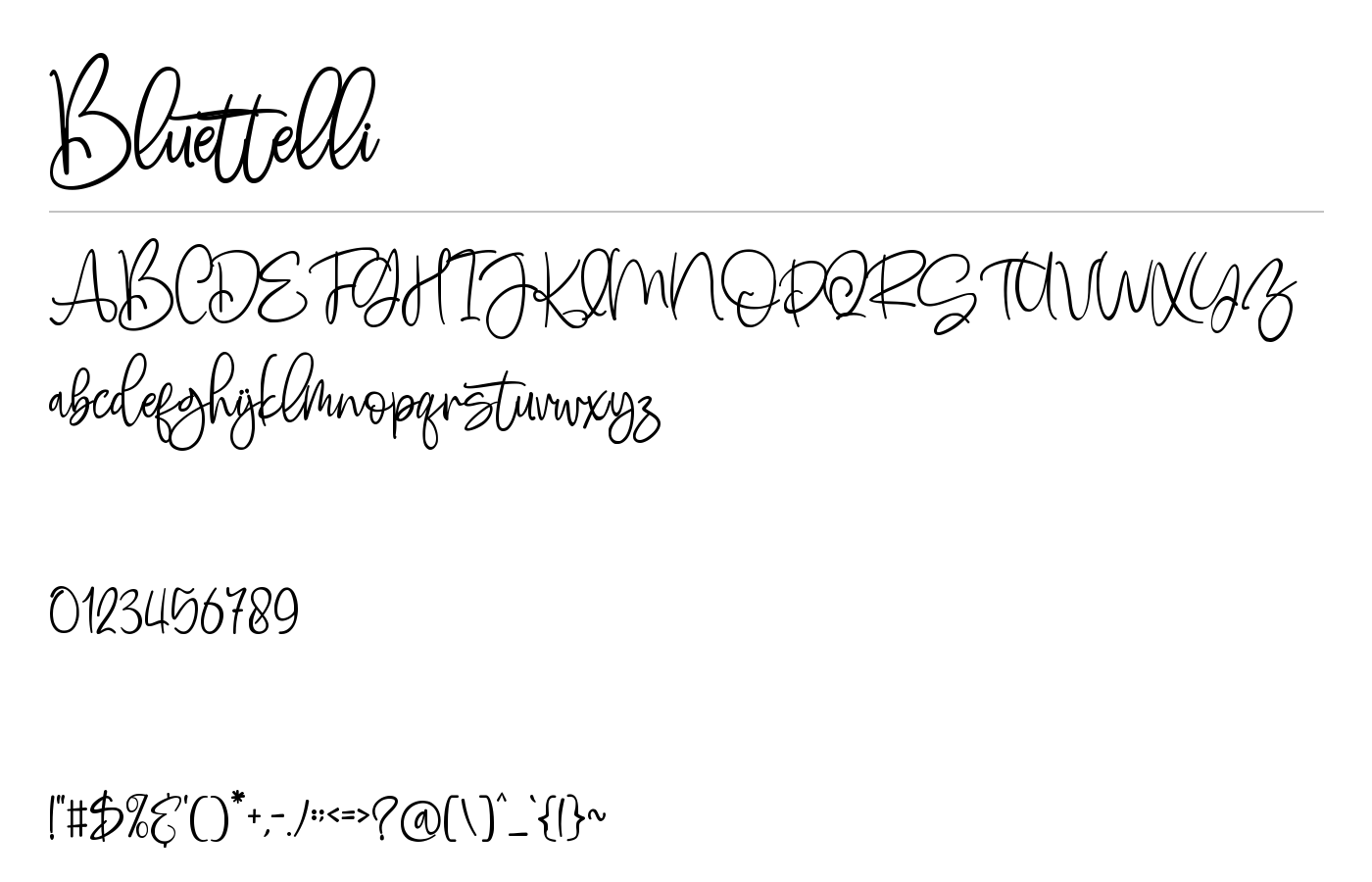
Bluettelli is a playful and elegant handwritten script font featuring tall, slender letterforms with delicate strokes and whimsical loops. Its light weight and airy spacing give it a casual yet sophisticated personality, perfect for creative and stylish branding, invitations, or headlines where a personal touch is desired. The font’s charm and fluidity make it ideal for projects that aim to feel both artistic and approachable.
| Font family | Bluettelli Font |
| Designer | Letterara 2020 |